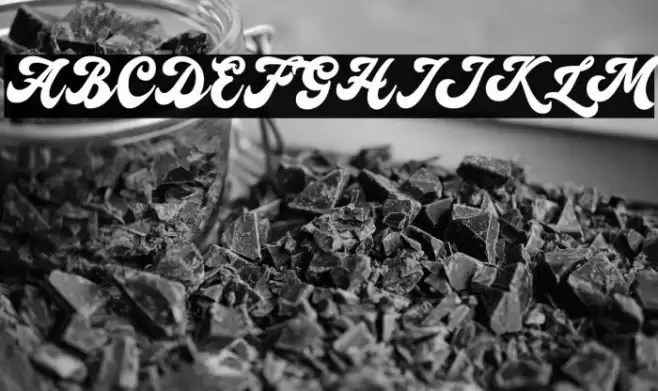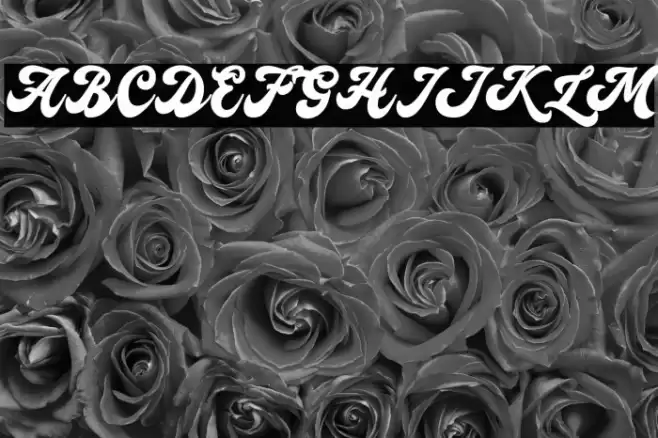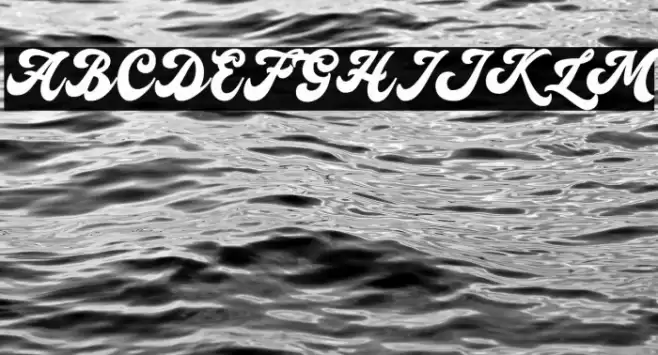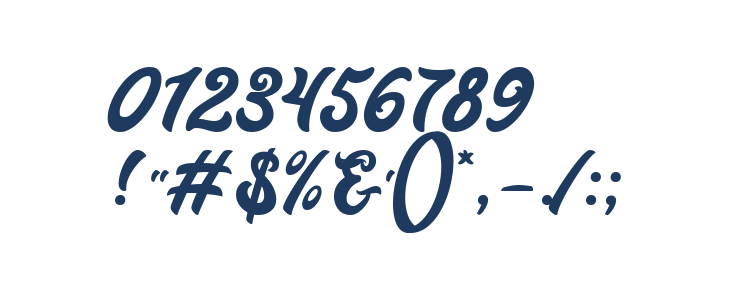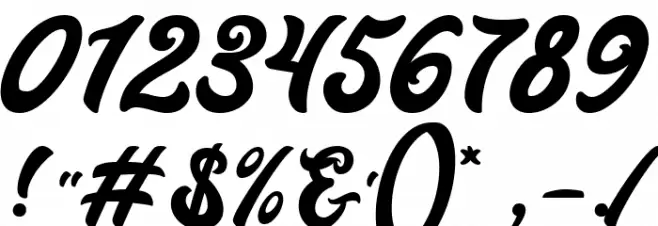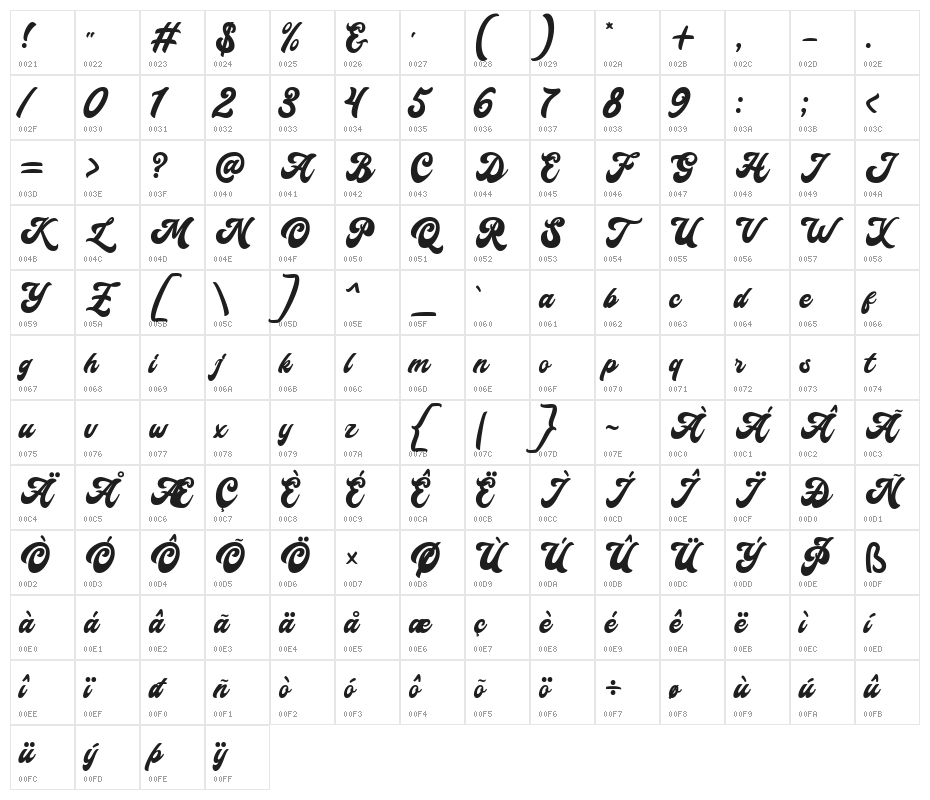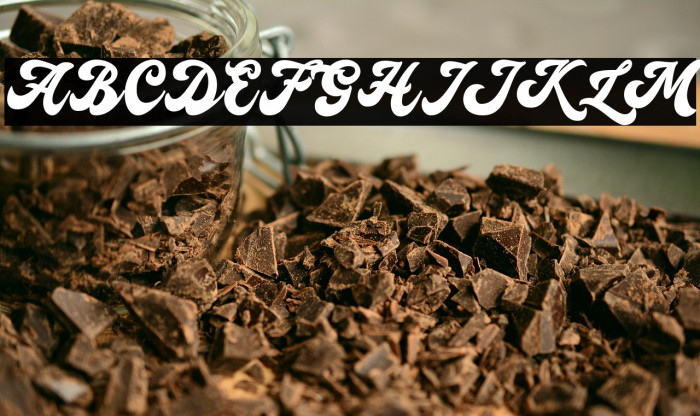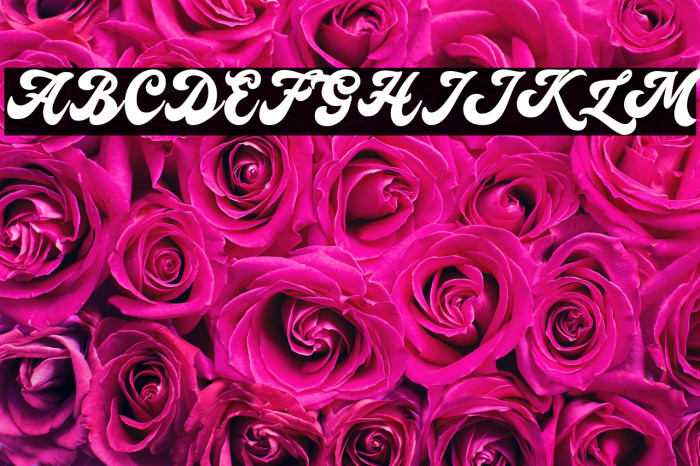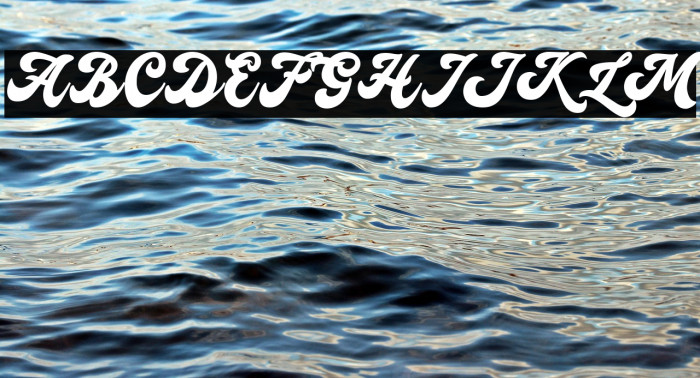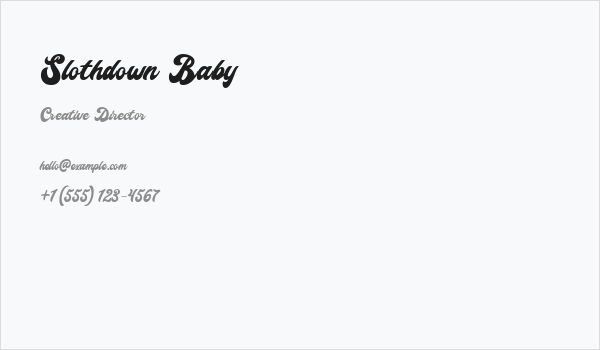
Slothdown Baby Font
Slothdown Baby Description
This font features a bold, cursive style with a playful and dynamic appearance. The letters are interconnected, creating a flowing script that is both elegant and lively. The uppercase letters are slightly more embellished, with flourishes that add a touch of sophistication. The lowercase letters maintain a consistent style, ensuring readability while retaining the font's unique character. The numbers and special characters are designed to match the overall aesthetic, with rounded edges and smooth curves. This font is ideal for projects that require a personal touch or a sense of movement and energy.
A bold, cursive font with a playful and dynamic style from Uncategorized fonts.